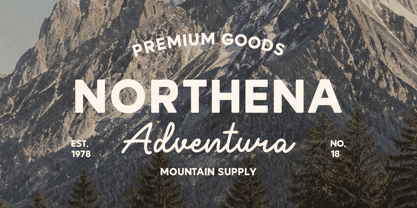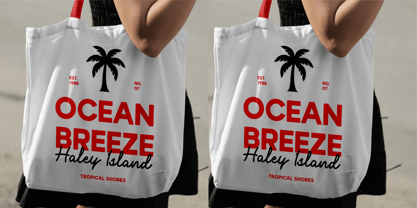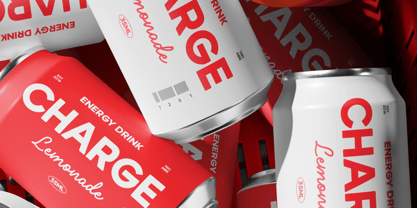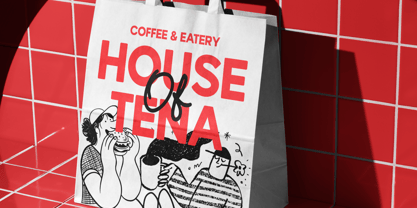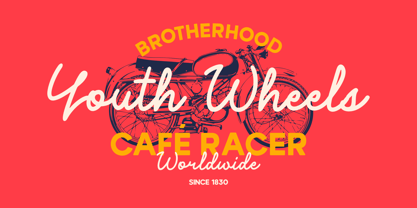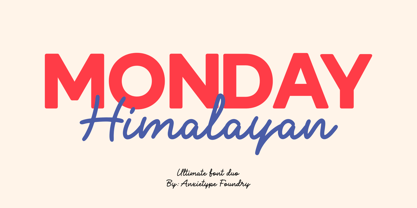
Monday Himalayan
von Anxietype Foundry
Die Schriftfamilie Monday Himalayan wurde von Annas Rifky Anhar entworfen und von Anxietype Foundry veröffentlicht. Monday Himalayan enthält 2 Stile und Familienpaketoptionen. Mehr über diese Familie
Monday Himalayan is a stylish font duo that seamlessly blends a clean, modern Sans Serif with an elegant, expressive Script typeface. Crafted by Anxietype Foundry, this versatile combination harmonizes simplicity with personality, making it ideal for designs that require a contemporary yet handcrafted aesthetic. The Sans Serif font offers a robust and clean foundation, while the Script infuses a touch of elegance, warmth, and natural character. Together, they produce a stunning visual contrast that enhances a variety of creative projects, from branding and web design to editorial layouts and more. This font family is perfect for those seeking to elevate their designs with a unique and sophisticated flair.
Designer: Annas Rifky Anhar
Foundry: Anxietype Foundry